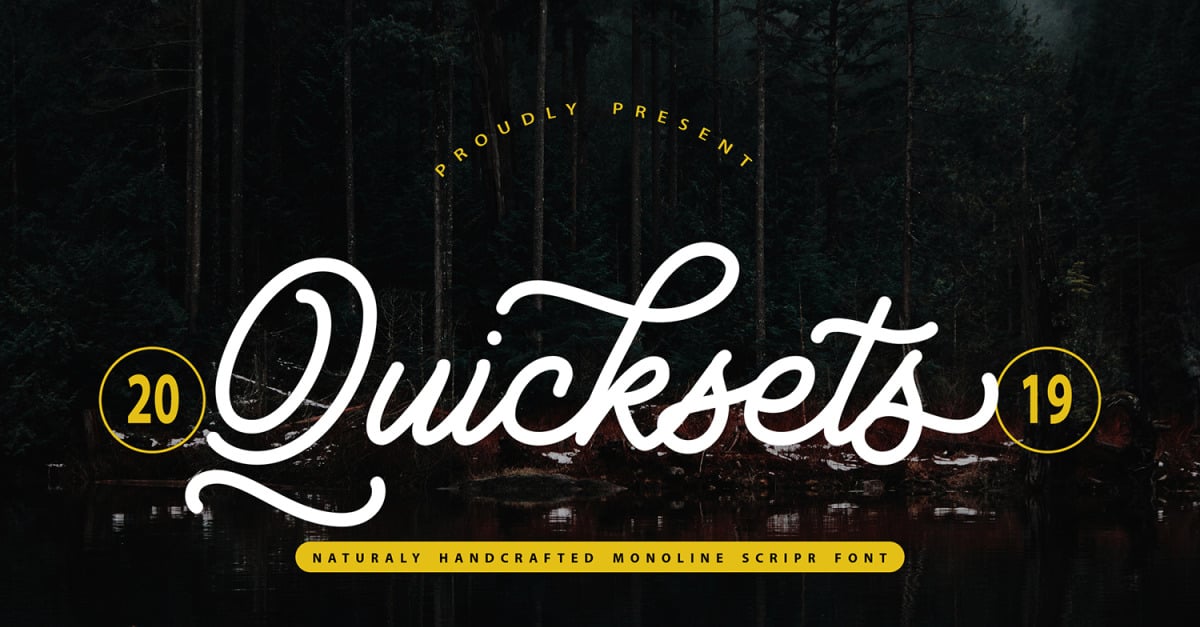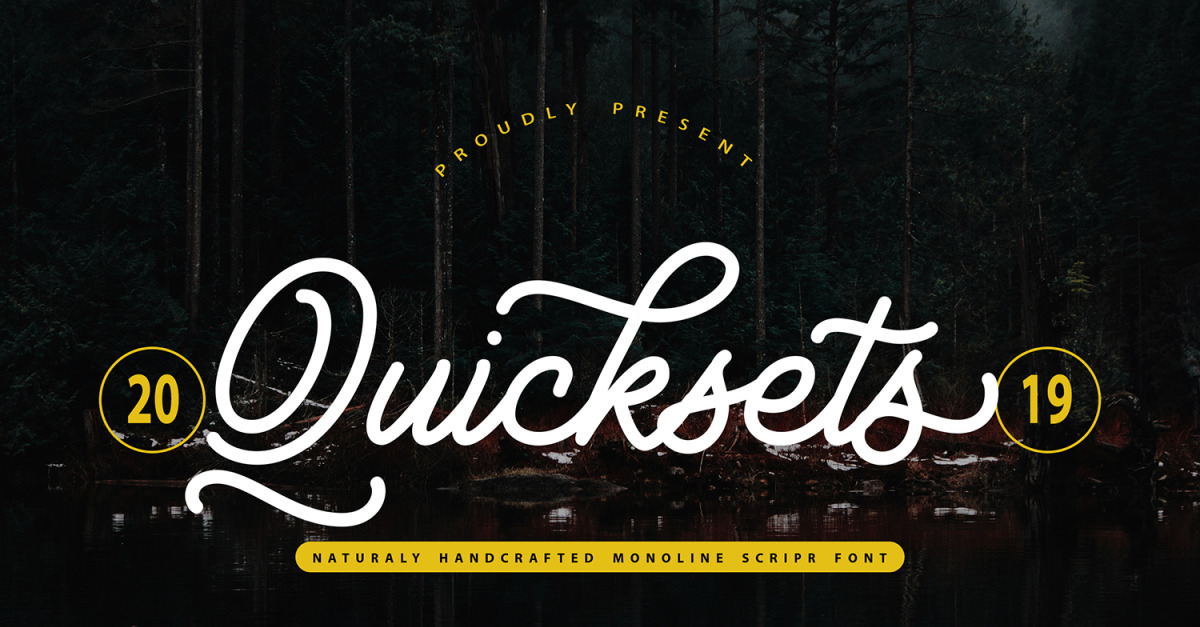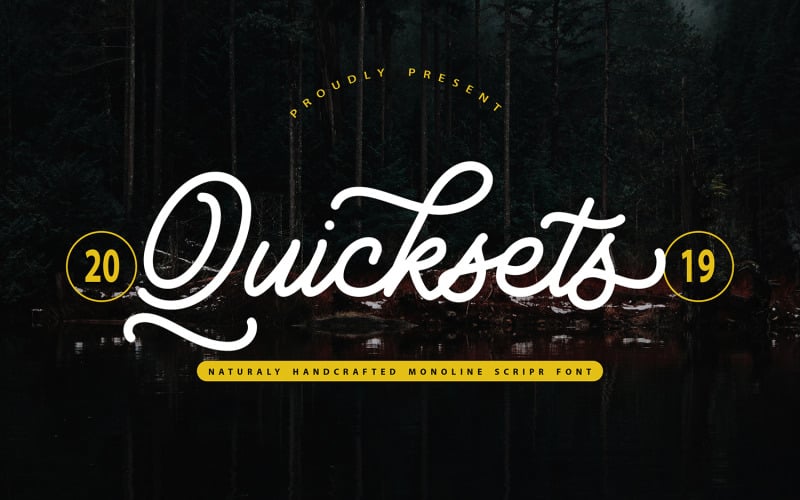
QuickSets | Handcrafted Monoline Cursive Font
**QuickSets | Handcrafted Monoline Script** with a calligraphy style, So beautiful on invitation like greeting cards, branding materials, business cards, quotes, posters, and more!